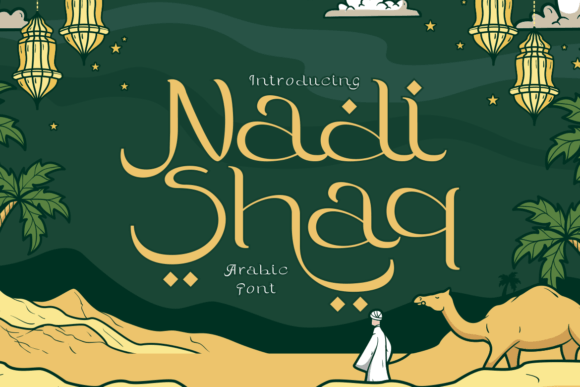
Introducing Nadishaq Font, the ultimate choice for anyone seeking the best font for PDF books! Created by putracetol, this captivating display font will take your designs to a whole new level.
With its unique Arabic letter theme, Nadishaq Font stands out from the crowd, making your text truly eye-catching and engaging. Each character in this font is meticulously crafted using the basic Arabic letterforms, ensuring an authentic and visually stunning result.
What sets Nadishaq Font apart is its ability to retain the distinctive features of Arabic letters. The dots and swashes that are characteristic of Arabic script are seamlessly incorporated, adding an extra layer of authenticity to your designs. Whether you're designing book covers, brochures, or website headers, this font will bring a touch of elegance and sophistication.
Not only does Nadishaq Font offer a visually appealing aesthetic, but it also provides a functional advantage. Its clear and legible design ensures that your text remains easily readable, even at smaller sizes. Say goodbye to blurry or pixelated text, and hello to crisp and professional-looking PDF books.